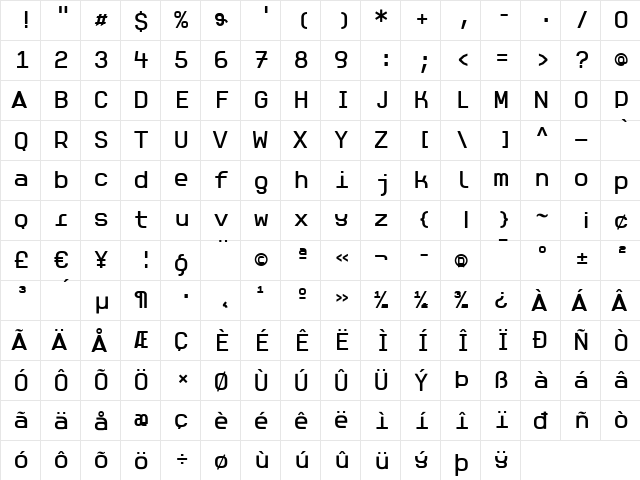
Normetica Regular
Design Context for Normetica Typeface
Normetica takes a measured approach to typography — its balanced proportions and neutral character make it a reliable workhorse for both digital and print work.